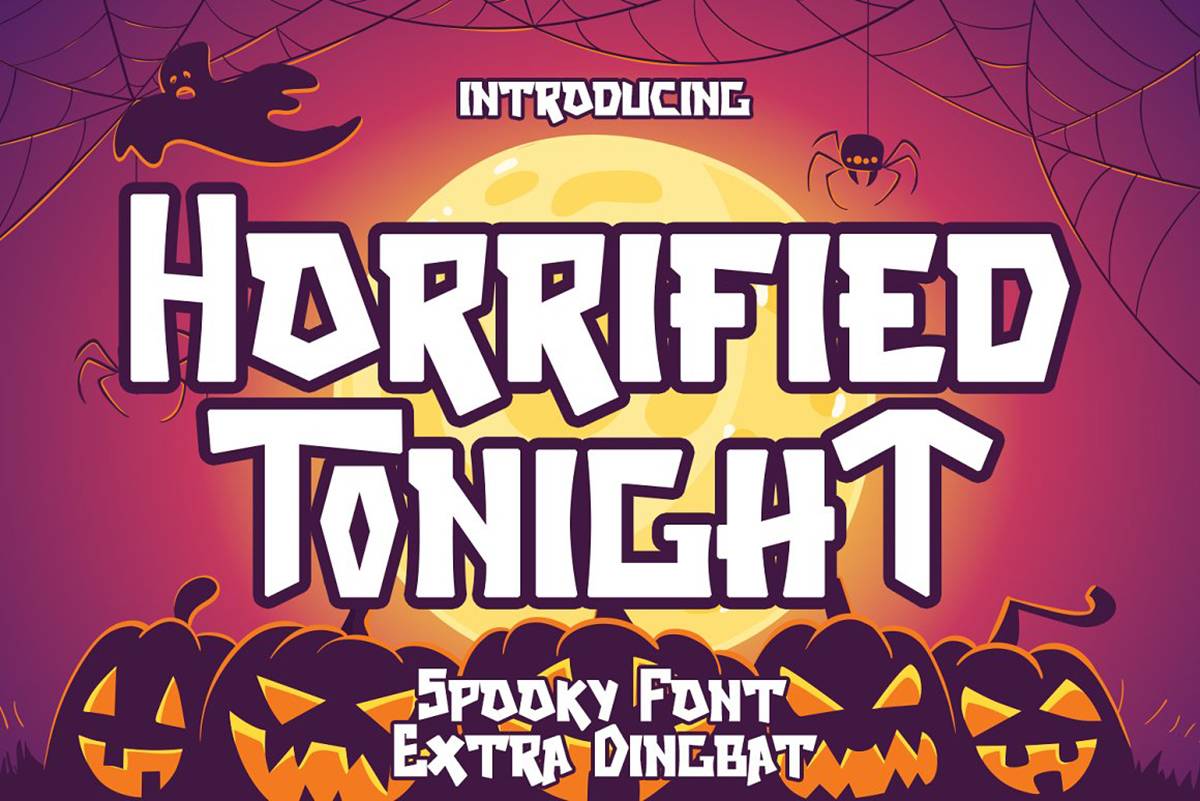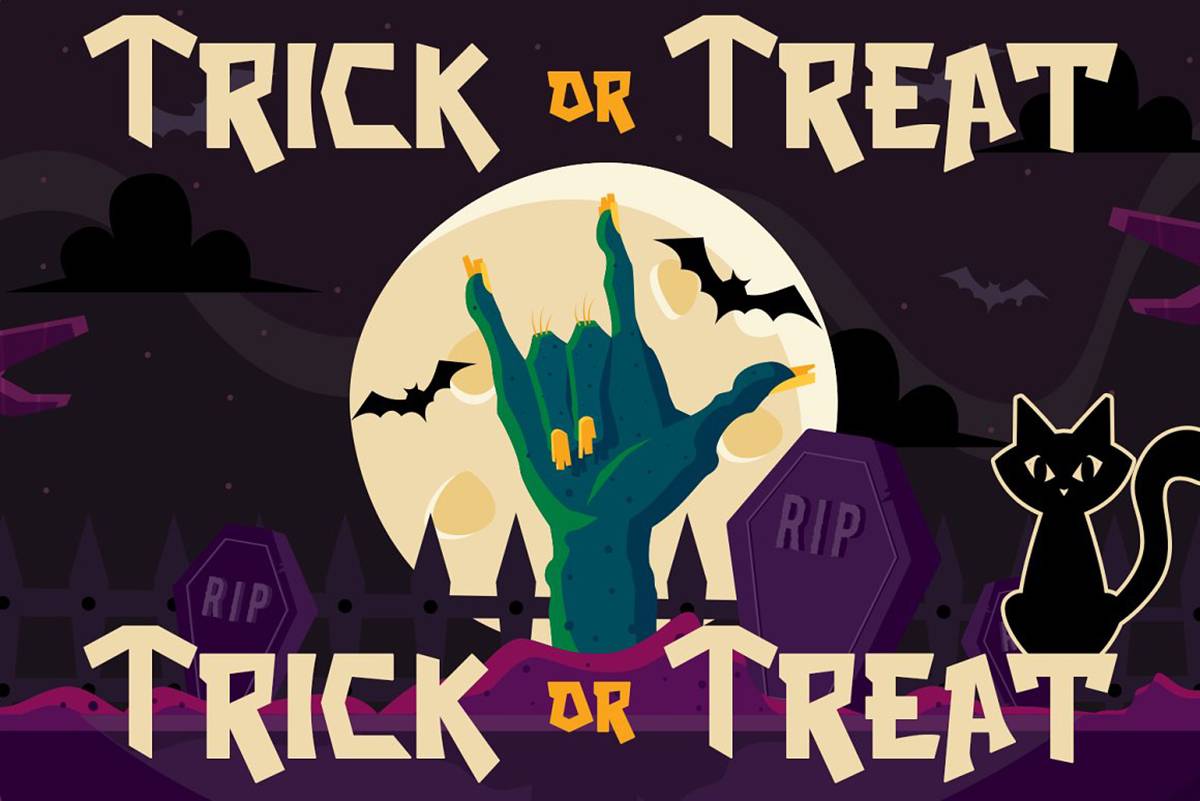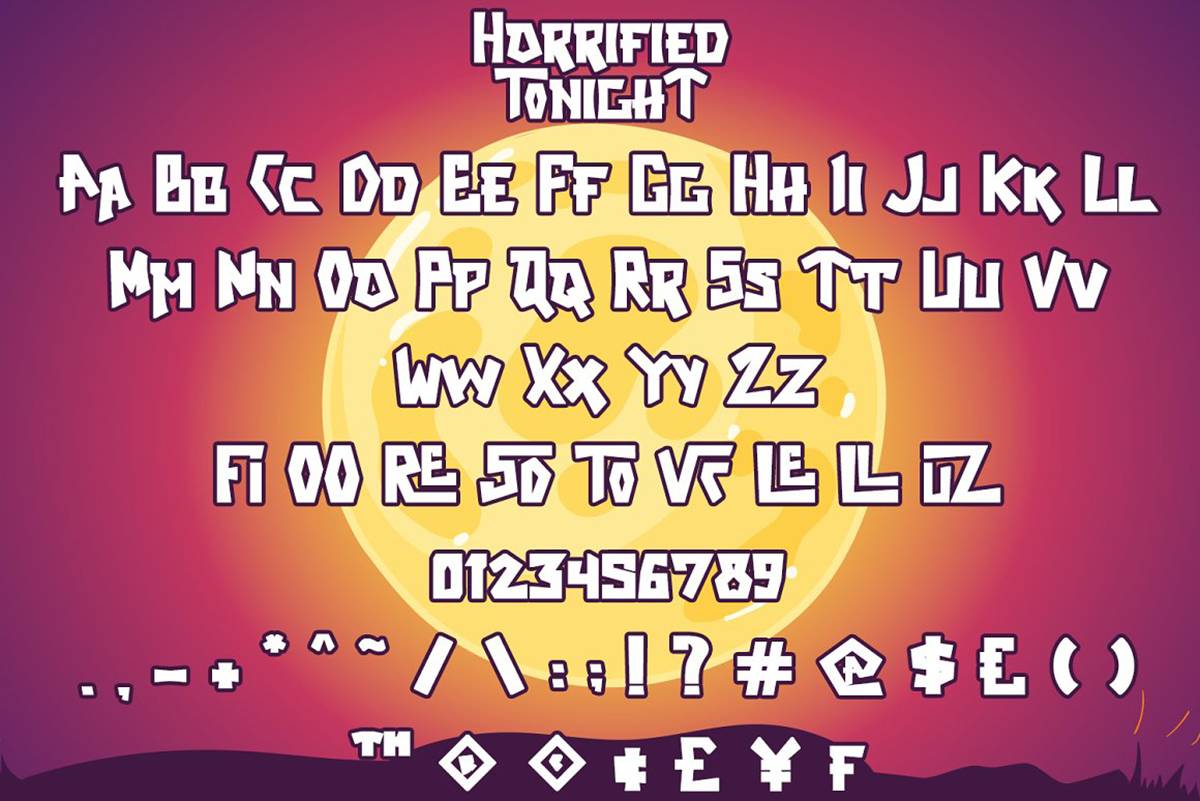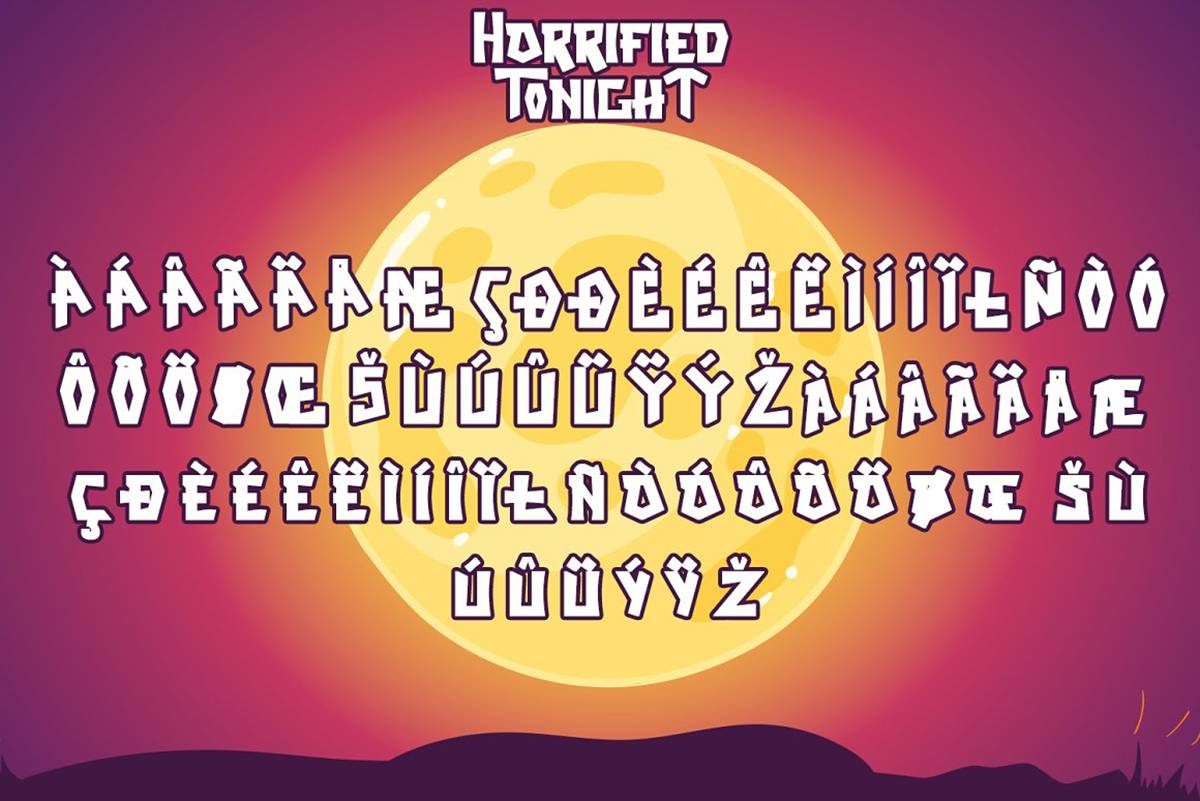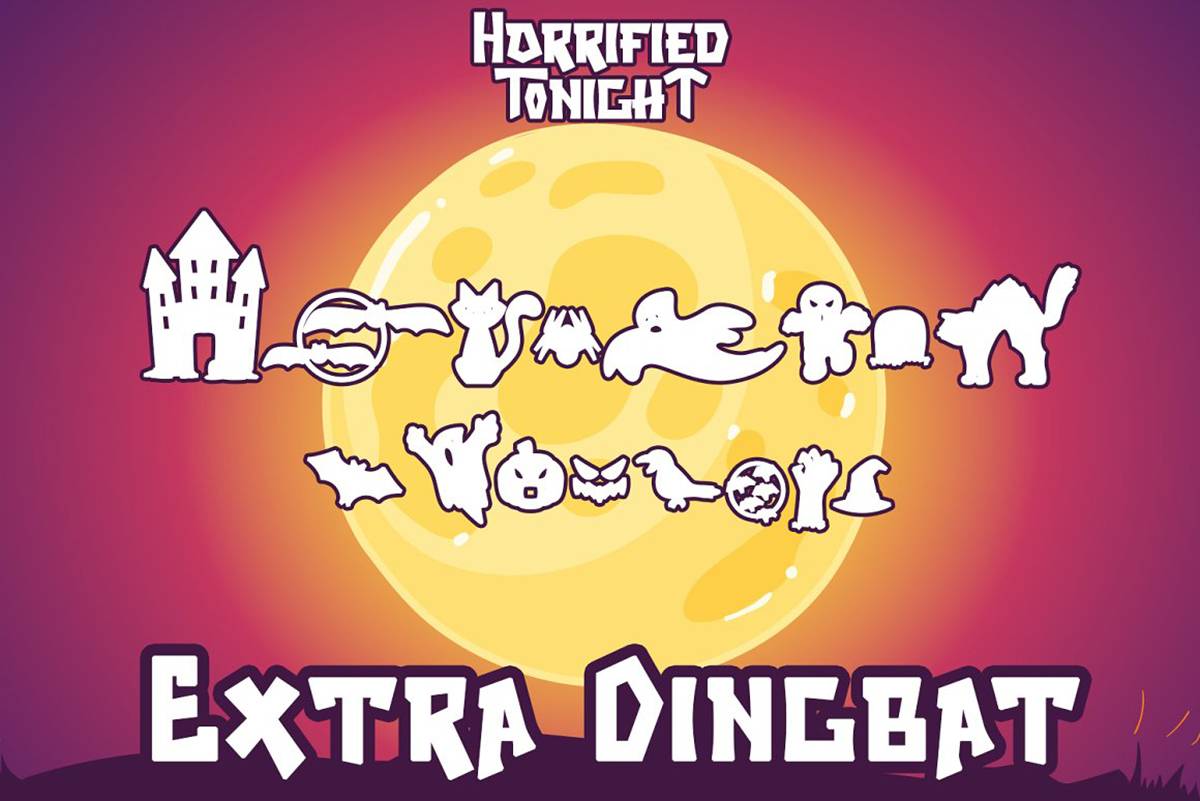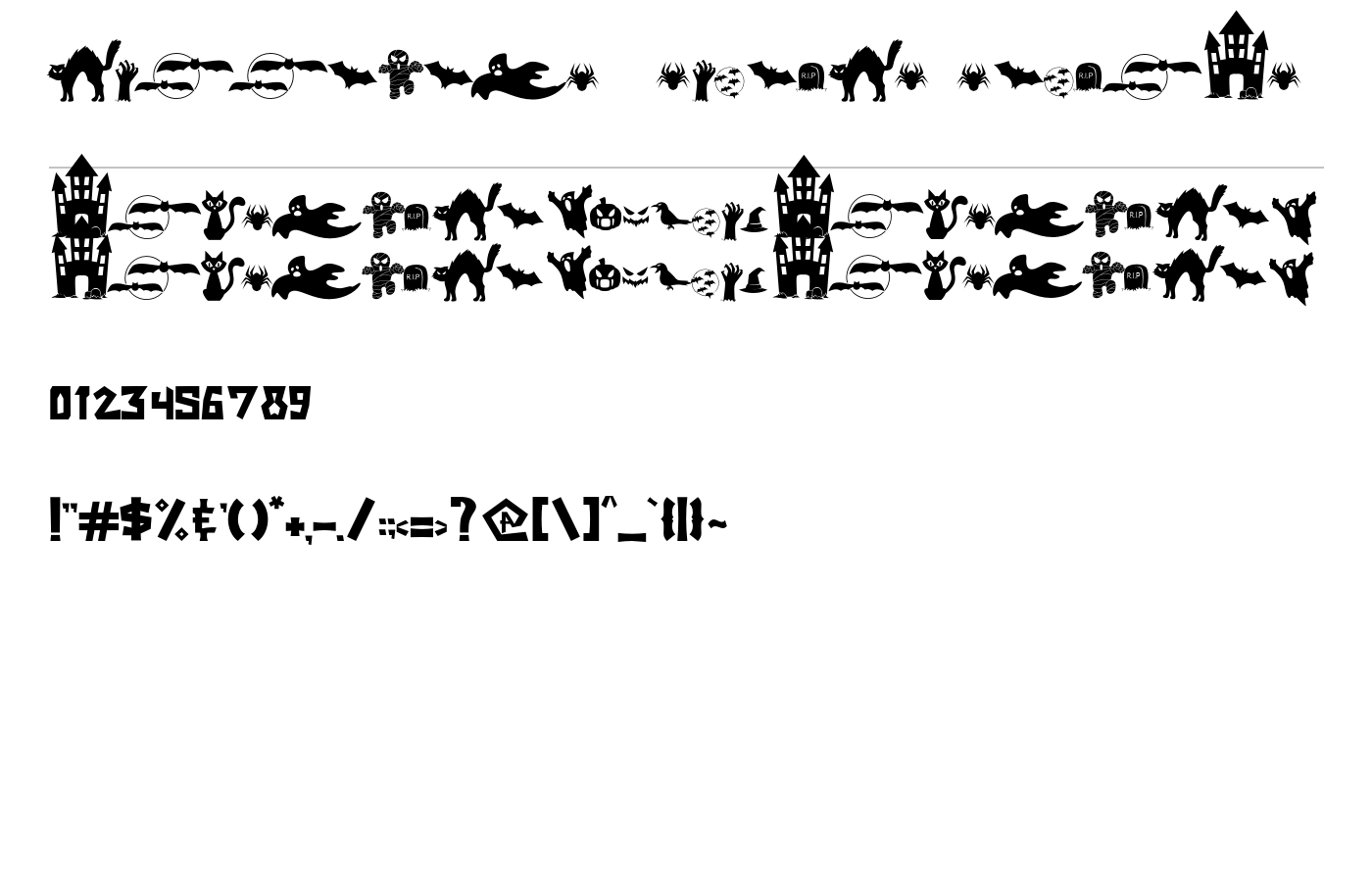
Horrified Tonight is a playful and decorative font perfect for Halloween-themed designs, featuring spooky icons like bats, ghosts, and haunted houses alongside bold, angular letters and numbers. Its bold weight and condensed form create a strong, eerie presence, making it ideal for festive posters, party invitations, and themed branding that aims for a fun yet chilling vibe. This font shines in headline use where its unique character shapes instantly capture attention and set a spooky, spirited mood.
Horrified Tonight Font
About Horrified Tonight Font